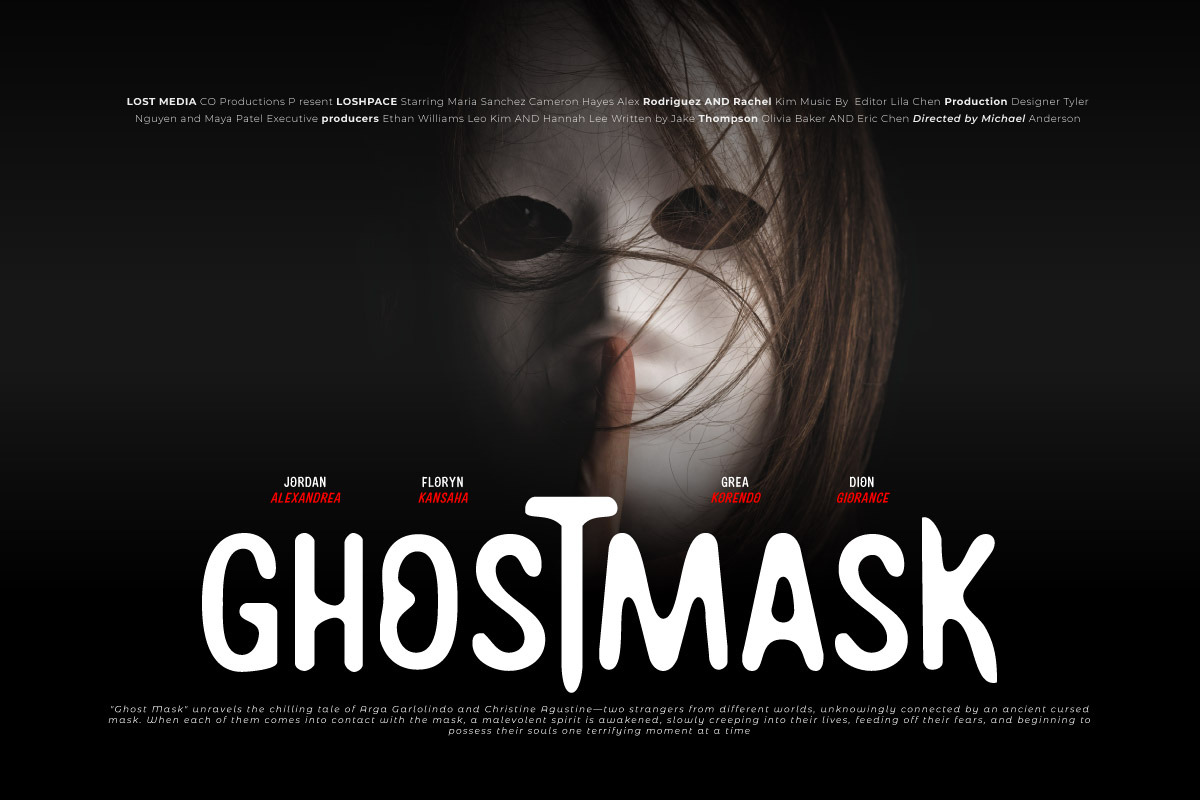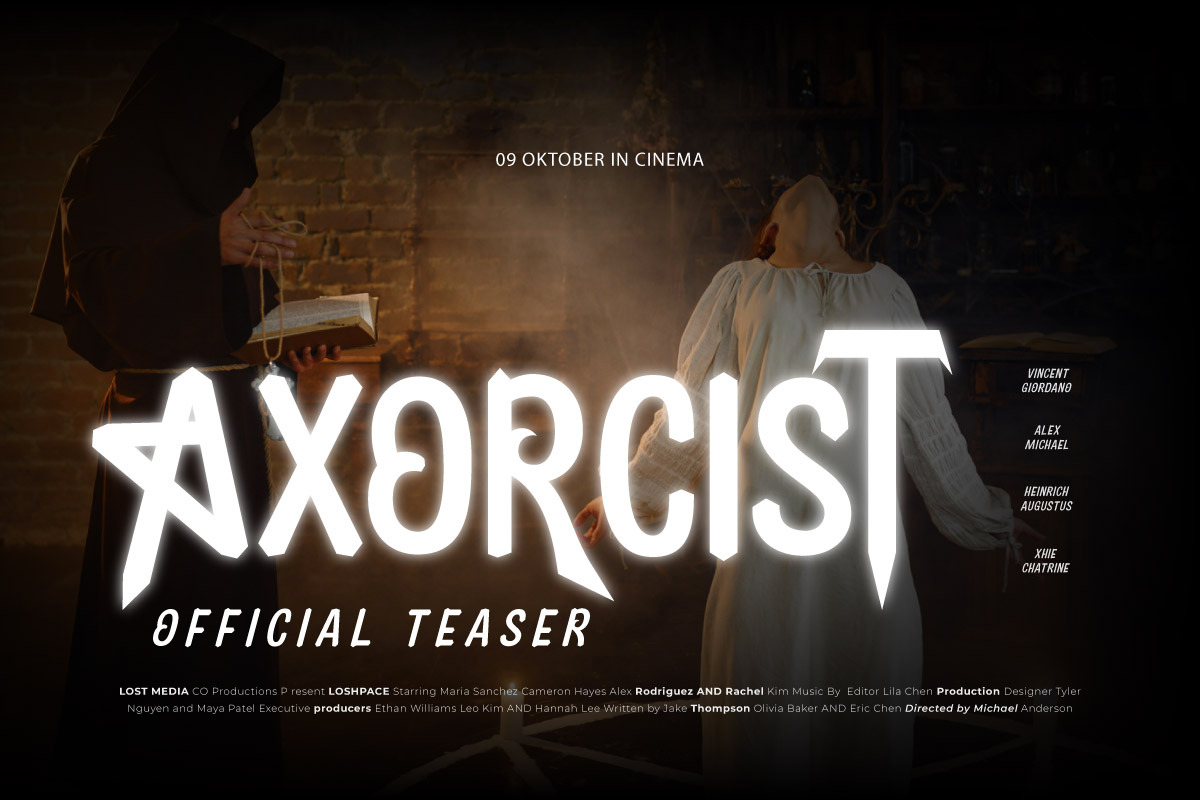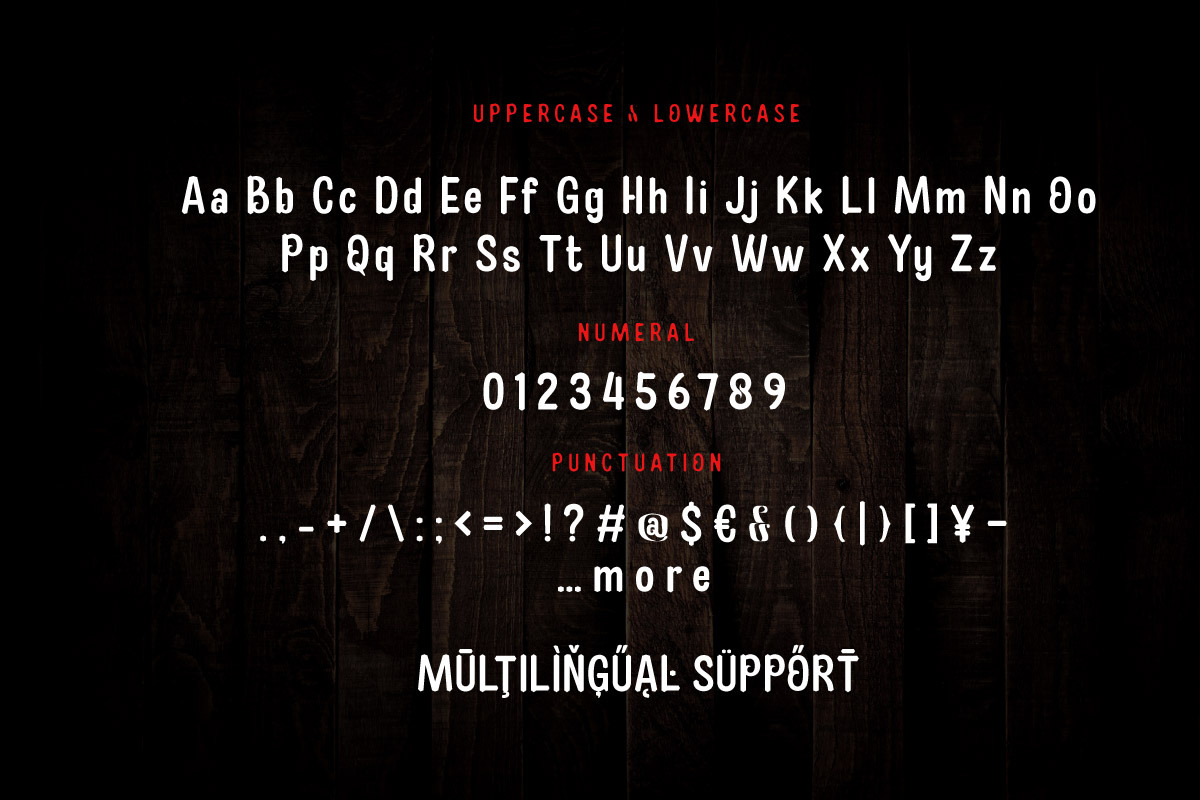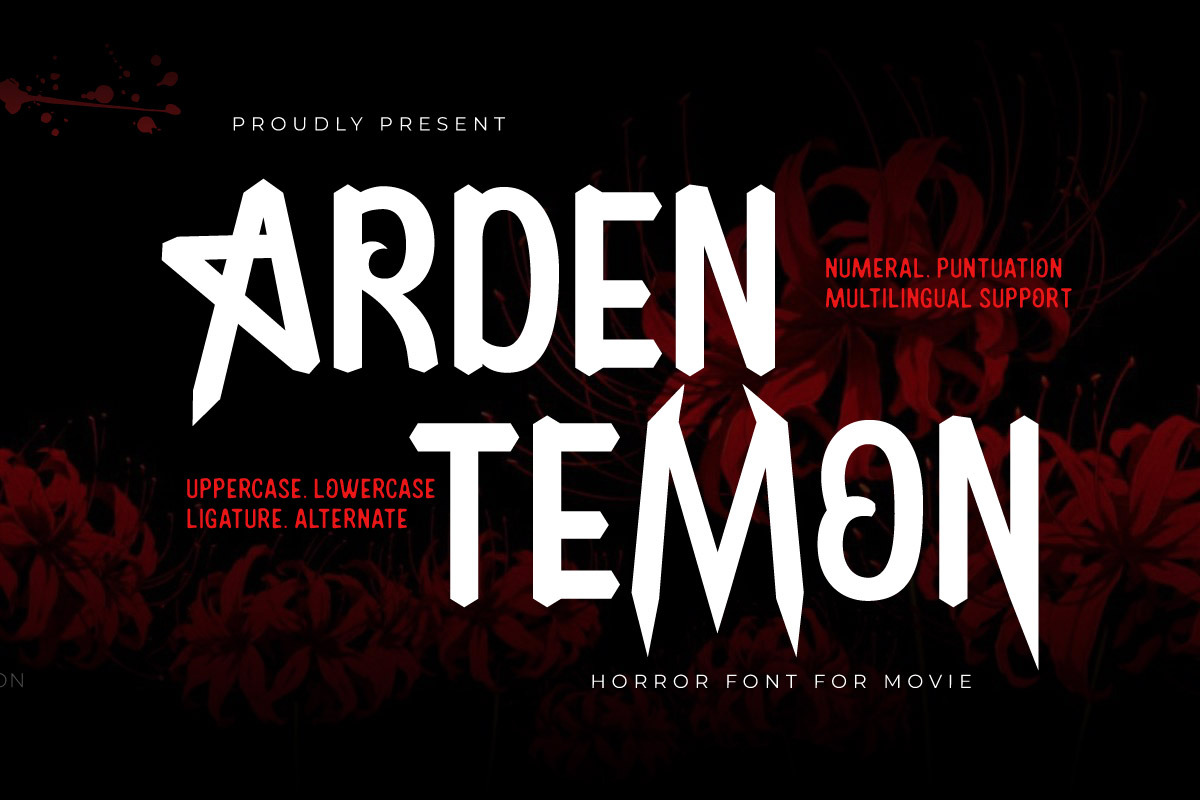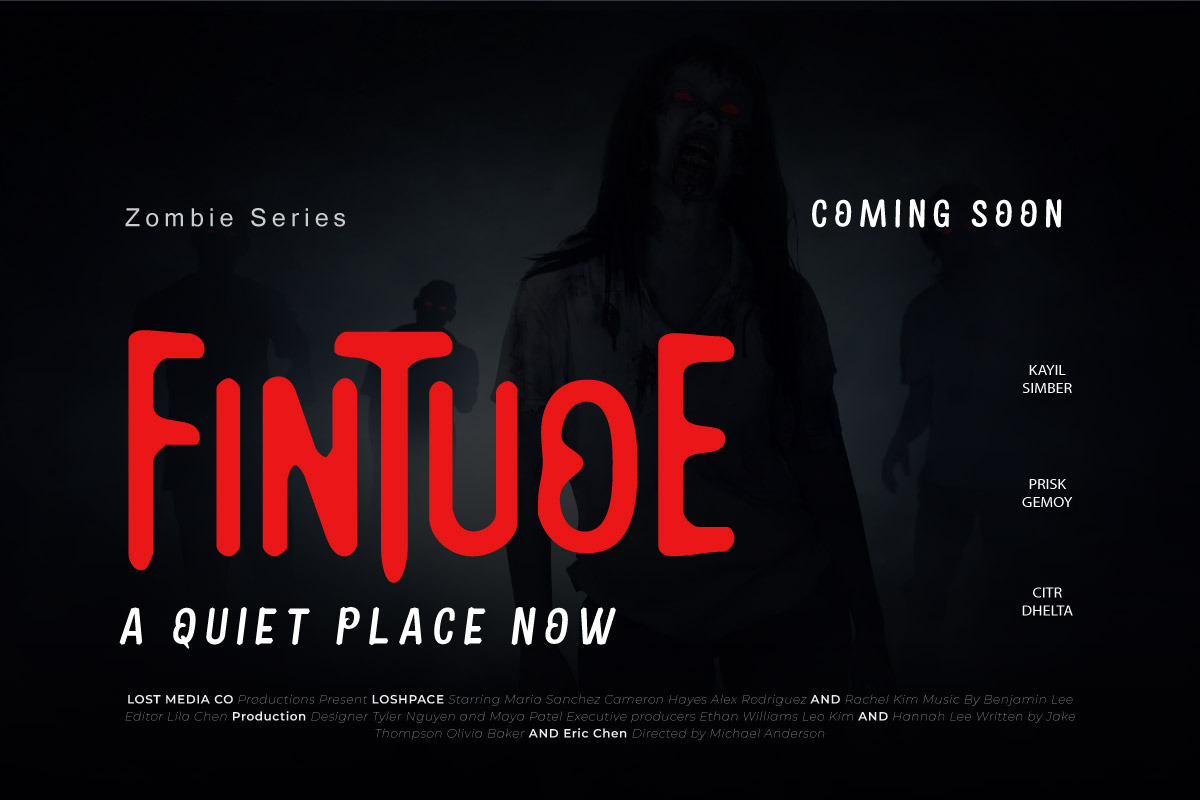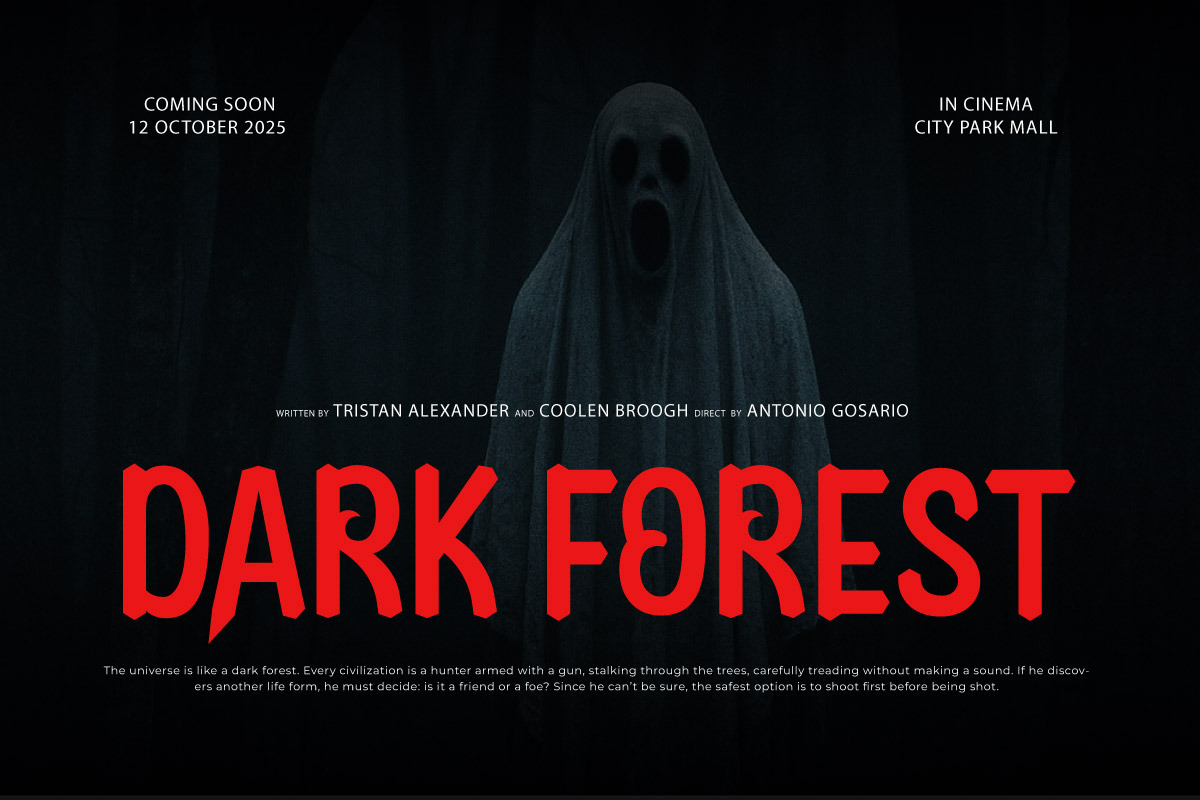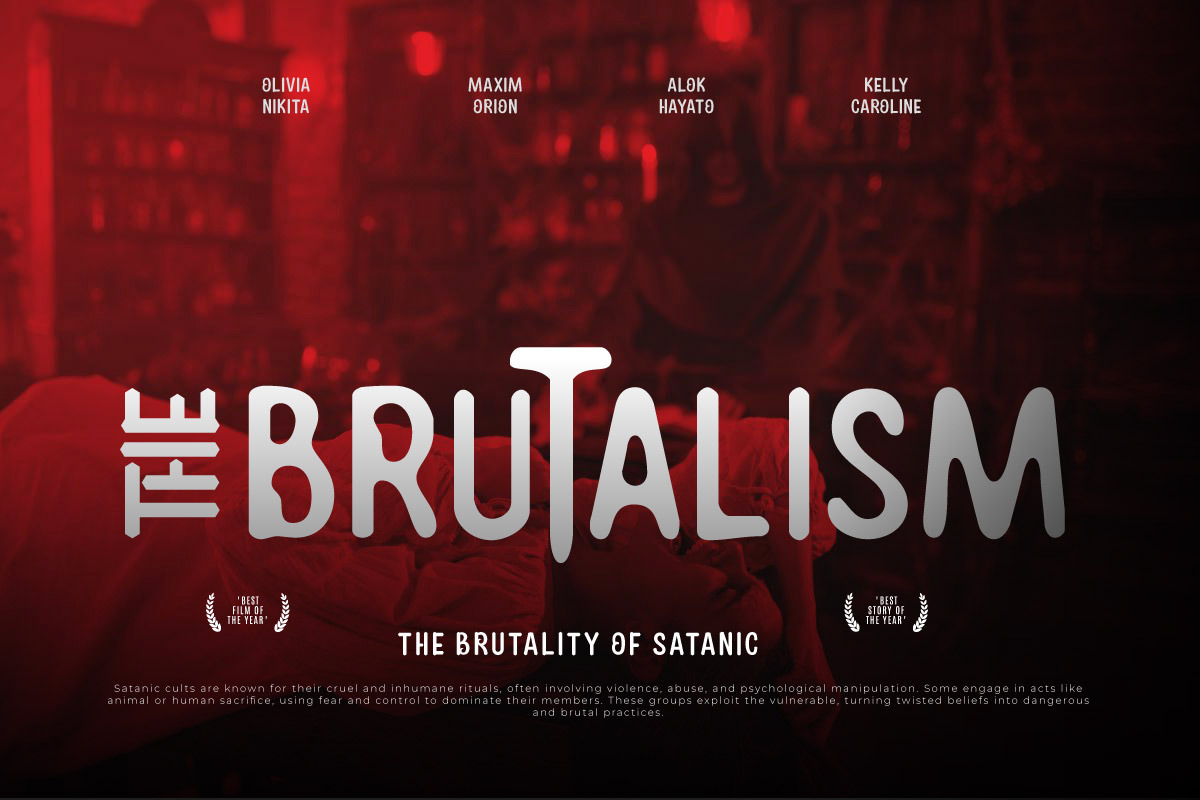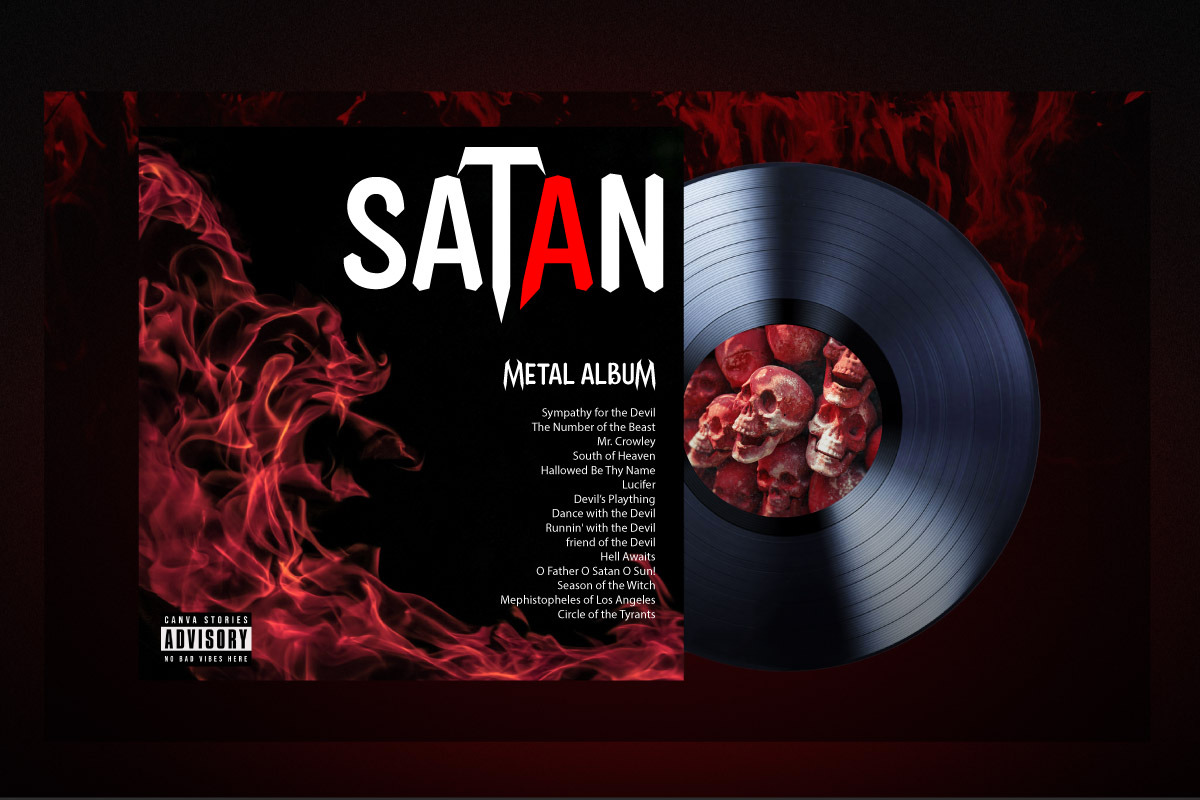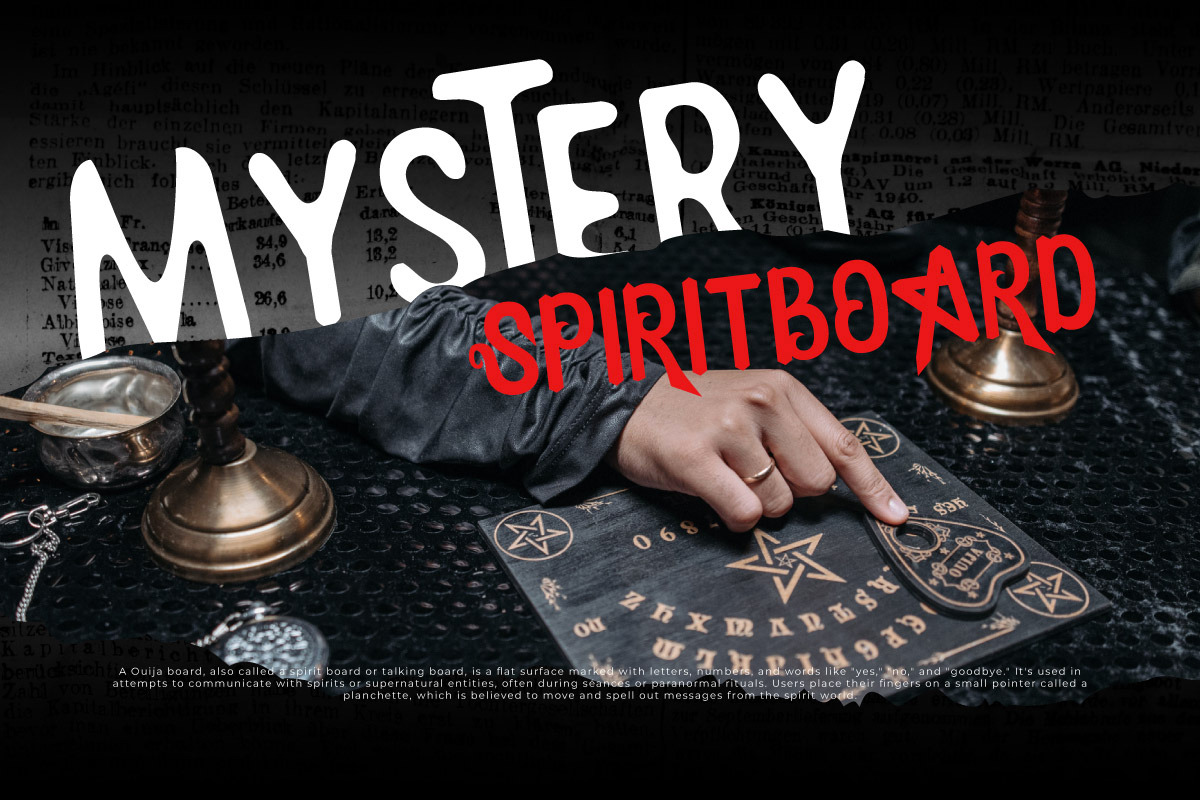
Ardentemon - Horror Movie Font
Introducing Ardentemon, a terrifying horror movie font that embodies fear and suspense in every letter. Designed with sharp edges, irregular strokes, and a chilling atmosphere, Ardentemon is the perfect typeface for horror-themed posters, thriller movie titles, spooky invitations, Halloween designs, and more.
This font exudes a sinister energy that immediately captures attention and sets the tone for mystery and dread. Its aggressive, jagged letterforms evoke a sense of danger, making it ideal for projects that demand a bold, unsettling impact. Whether you're crafting eerie promotional materials or branding for horror content, Ardentemon will bring your scariest visions to life.